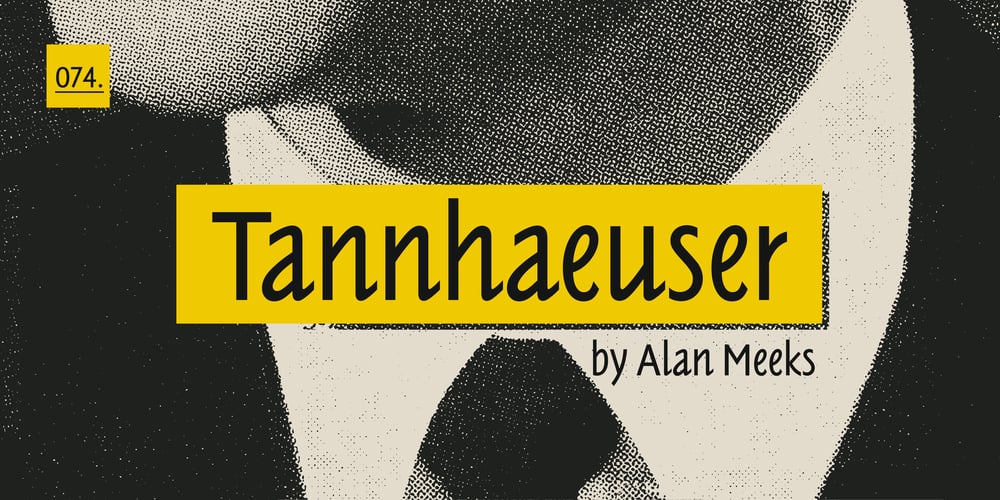
Tannhaeuser
Tannhaeuser font
Tannhaeuser Font Family was designed by Alan Meeks and published by ITC. Tannhaeuser contains 1 styles and family package options. Tannhaeuser is the work of British designer Alan Meeks, a sans serif typeface with conventional capitals letter complemented by an unusual lowercase alphabet. It looks best when close letter spaced, especially the lowercase, whose lower right extensions are designed to overlap or join in a script fashion.